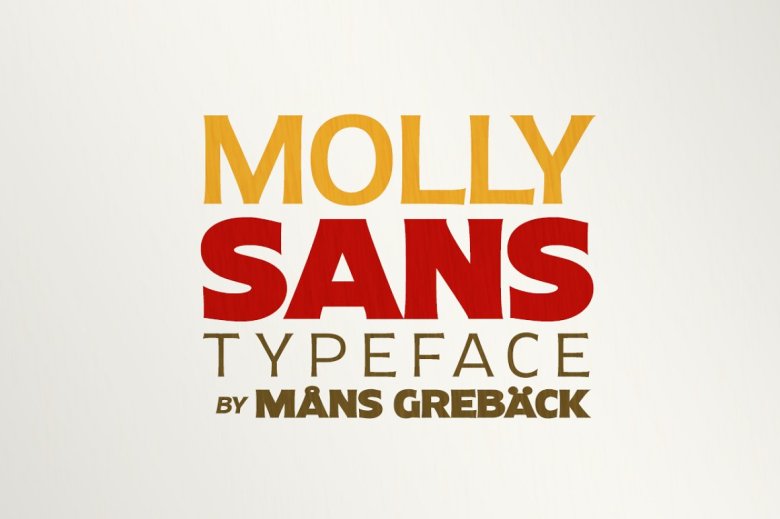
Molly Sans Font Family
Molly Sans Font
Molly Sans is a sans-serif family, drawn and created by Måns Grebäck between 2016 and 2019. With an appearance similar to traditional sign painting, this all-caps typeface works great in classic, genuine and crafty designs.
Stable and perfect for stacked type settings, Molly Sans is used for headers and titles meant to grab the attention of the observer. The font family includes 25 (!) styles, from Extra-Condensed Thin to Extra-Expanded Black. The many style options allows for very high flexibility and real customization.
Molly Sans Font Family